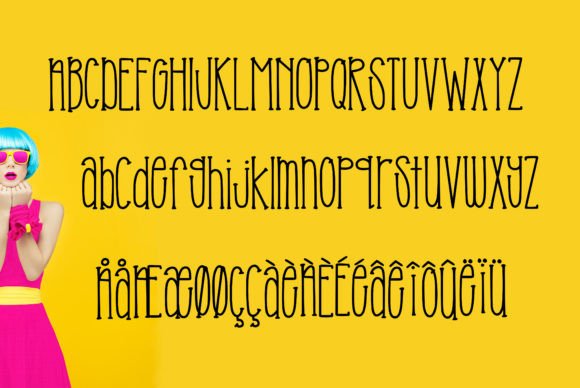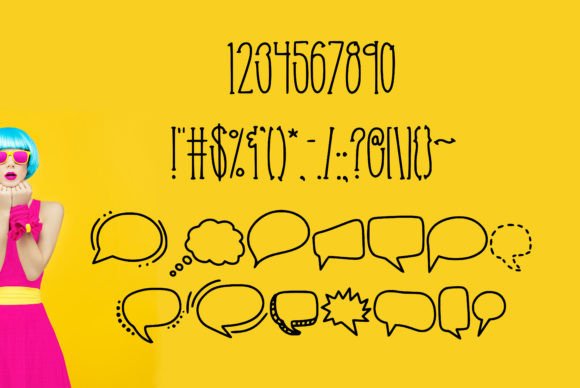
Introduction to Say What?! Font
Have you ever stared at a blank page, struggling to bring your creative vision to life? You know, that moment when your mind is racing with ideas, but your design skills just can’t keep up? That’s where the Say What?! Font comes in – a game-changing typeface that’s about to revolutionize your creative projects.
With its unique, whimsical style and playful vibe, this font is perfect for designers looking to add a burst of energy to their designs. Whether you’re working on a comic, poster, or social media graphic, Say What?! is sure to grab attention and make your project stand out from the crowd. Plus, with a collection of high-quality speech bubble illustrations, you’ll have everything you need to create engaging and eye-catching designs.
Key Features of Say What?! Font
- Unique, bold design for creative projects and presentations, perfect for adding a touch of humor and personality.
- High-quality font with a transparent background, allowing for seamless integration with any design.
- Available in a single size, 200px, with a resolution of 300 DPI for crisp and clear display.
- Suitable for a wide range of creative projects, including posters, flyers, social media graphics, and more.
- Easy to use and customize, making it an ideal design resource for designers and non-designers alike.
Honest Review: Say What?! Font
As a designer, I’m always on the lookout for unique and high-quality fonts to elevate my creative projects. Recently, I stumbled upon the Say What?! Font, which promises to bring a playful touch to my designs. Let’s dive into my honest review!
What works well: ✨ The Say What?! Font offers a transparent background, making it perfect for designing with images or textures. It’s also a free download, which is a huge plus for designers on a budget. The font is available in various weights and styles, giving me plenty of options to experiment with.
What doesn’t work so well: ⚠️ While the Say What?! Font is a great addition to my design resource library, I found it to be a bit challenging to read in smaller font sizes. Additionally, the font’s unique style may not be suitable for all types of projects, such as formal or professional designs.
Overall impression: I’m impressed with the Say What?! Font’s unique personality and versatility. It’s a great choice for creative projects, such as social media graphics, advertisements, or even a fun website. If you’re looking for a high-quality, free font to add some flair to your designs, the Say What?! Font is definitely worth checking out.
Pros:
- Various weights and styles available
Cons:
- Difficult to read in smaller font sizes
- May not be suitable for formal or professional designs
Tips for Getting the Most Out of Say What?! Font
Experiment with different font sizes, colors, and opacities to create a unique design. Use the font in combination with other design elements, such as images or shapes, to add depth and interest to your design. Don’t be afraid to try new and creative ways to use the Say What?! Font.
Common Use Cases for Say What?! Font
The Say What?! Font is perfect for any creative project that requires a unique and eye-catching design resource. Use it for social media graphics, blog posts, or even as a title for a presentation. The font’s high-quality design and transparent background make it a versatile and practical choice for any design project.
Yes, the Say What?! Font has a transparent background, allowing you to easily layer it over images or other design elements without any background interference. This makes it an excellent choice for creative projects that require a high level of design flexibility.
Q: What is the recommended resolution for using the Say What?! Font in a high-quality design project?
For optimal results, we recommend using the Say What?! Font at a resolution of 300 DPI or higher. This will ensure that the font appears crisp and clear, even in large-scale designs or high-resolution prints.